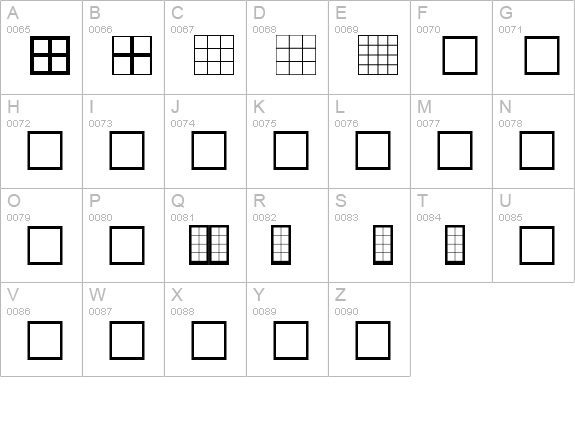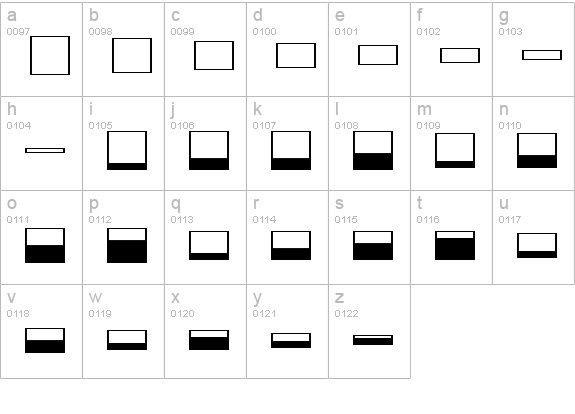
FFX Windows Font Details
The FFX Windows font is a sleek and modern typeface that is perfect for adding a touch of sophistication to your designs. Featuring clean lines and a contemporary style, this font is versatile and can be used for a wide range of projects. Whether you're working on a website, a brochure, or a logo, the FFX Windows font is sure to make your text stand out. Best of all, the FFX Windows font is completely free to download at FontsMarket.com. This means that you can access this high-quality font without having to spend a dime. So why wait? Add the FFX Windows font to your font library today and take your designs to the next level.